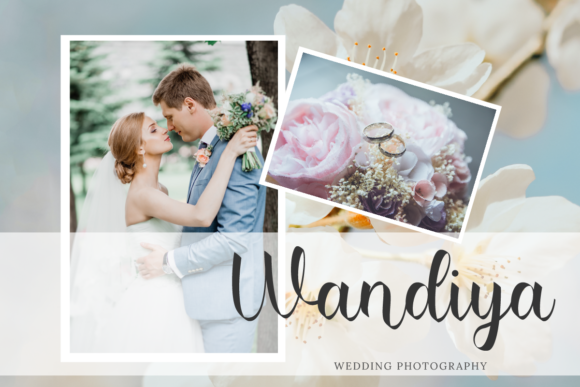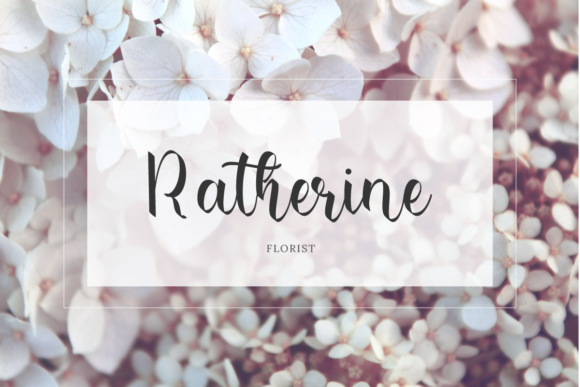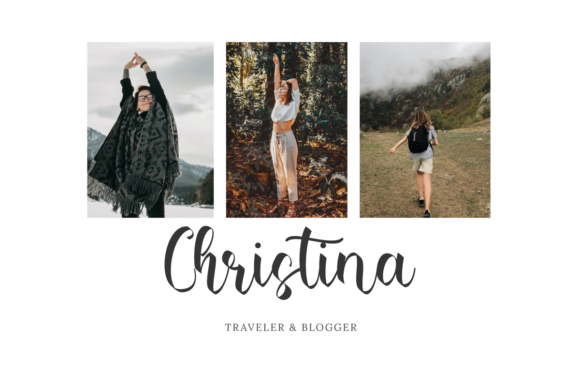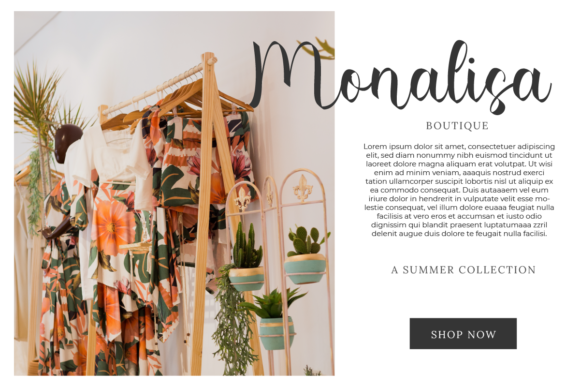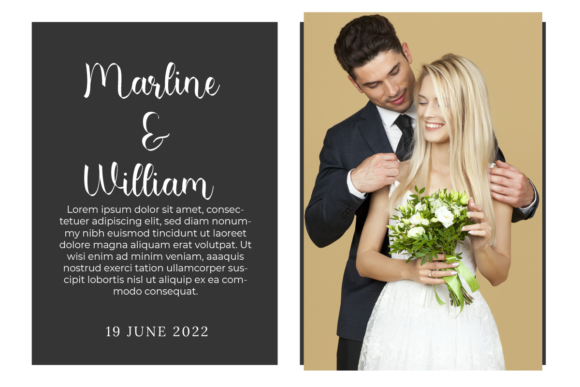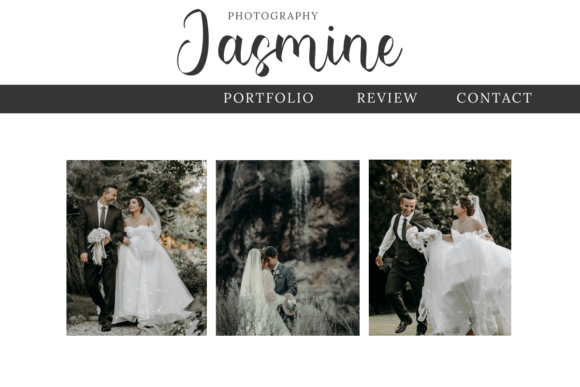
Introduction to Gabrielle Hannah Font
Gabrielle Hannah is a lovely, elegant and unique script font.
Fall for its ravishing style and use it to create gorgeous wedding invitations, beautiful stationary art, eye-catching social media posts, and much more .